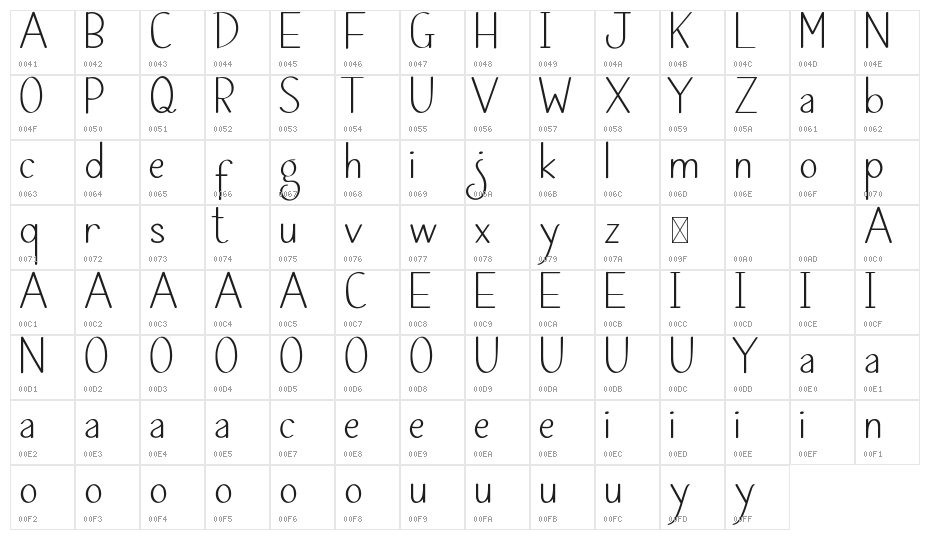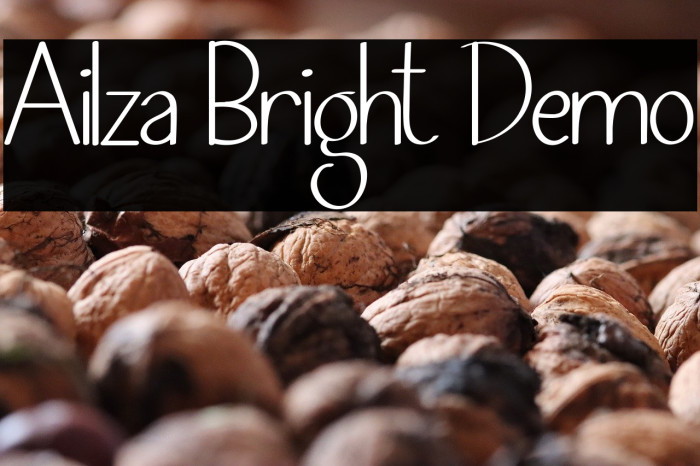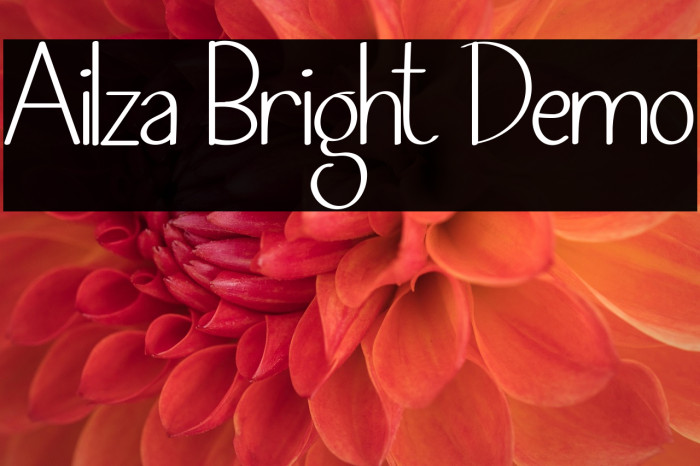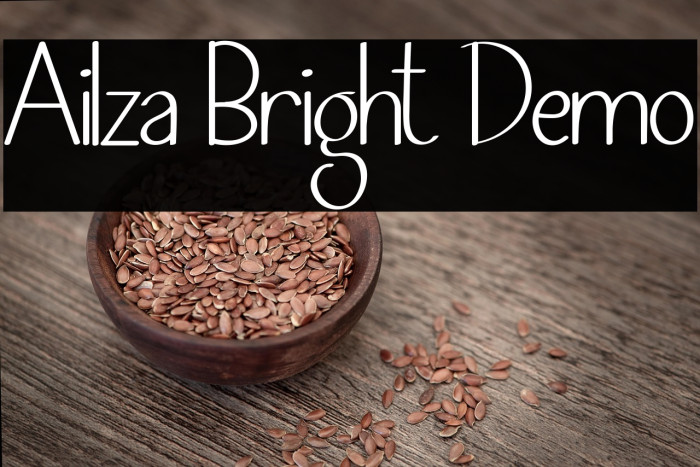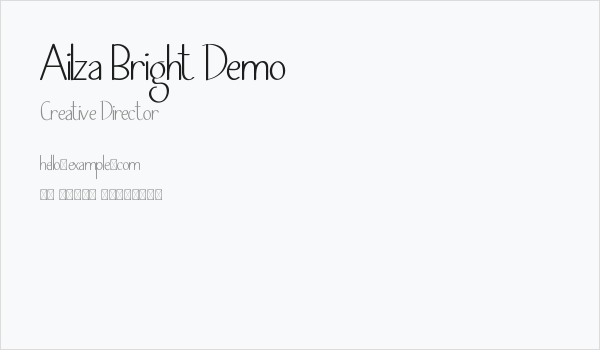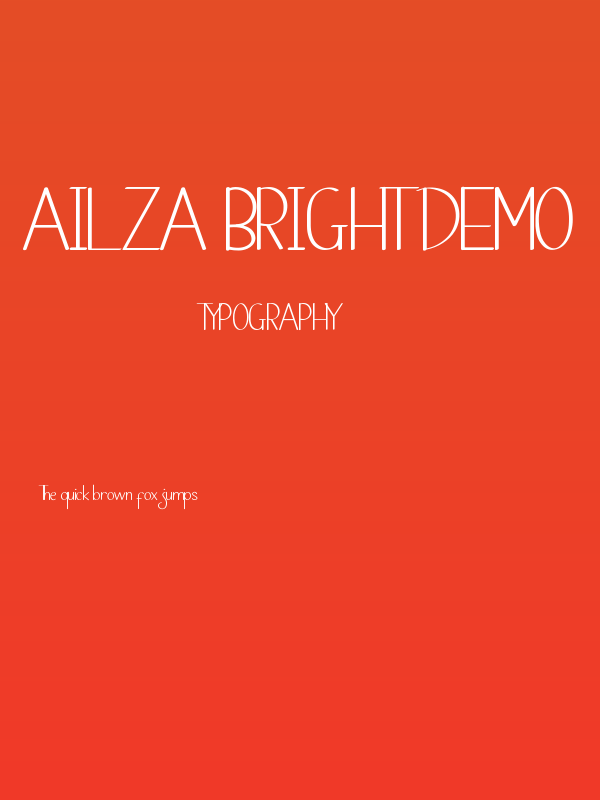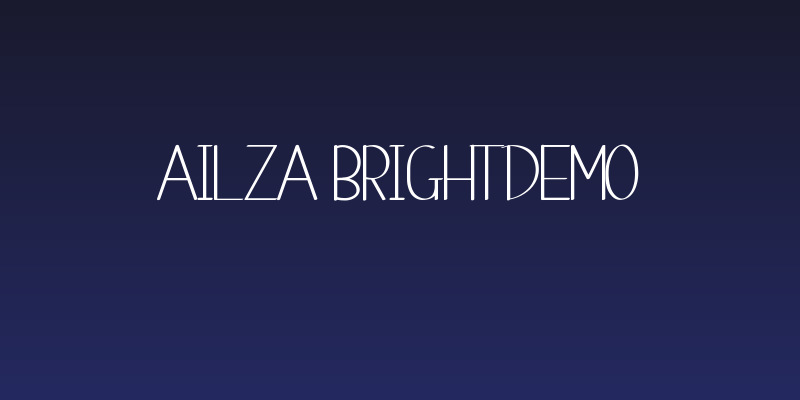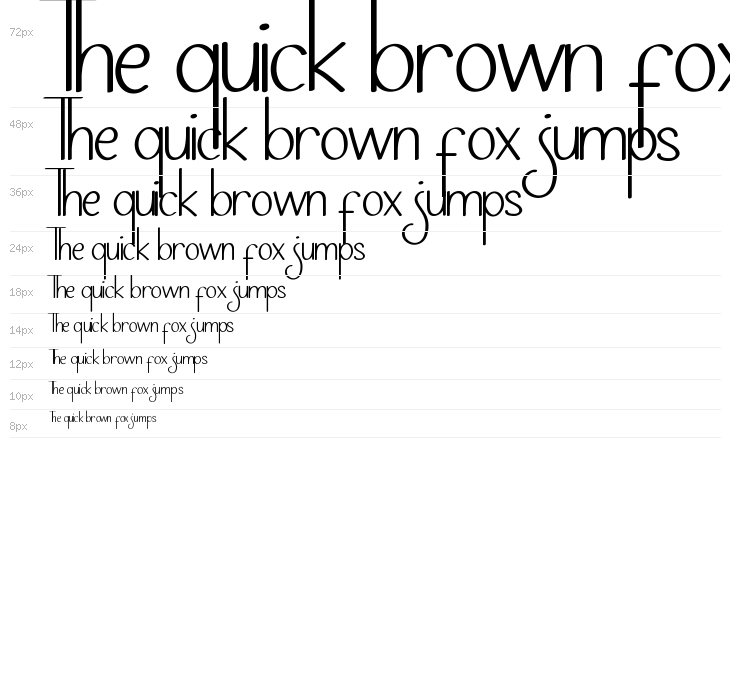
Ailza Bright Demo Font
Ailza Bright Demo Description
This font features a unique blend of modern and classic elements, characterized by its tall, narrow letterforms and clean lines. The uppercase letters are particularly elongated, giving a sense of elegance and sophistication. The lowercase letters maintain a consistent height, contributing to a harmonious appearance. The font's thin strokes and minimal contrast between thick and thin lines create a sleek and contemporary look. Special characters are seamlessly integrated, maintaining the overall aesthetic. The spacing between characters is balanced, ensuring readability while preserving the font's stylish appeal.
| Proposed Projects | Ideal for fashion magazines, luxury branding, wedding invitations, and high-end product packaging. |